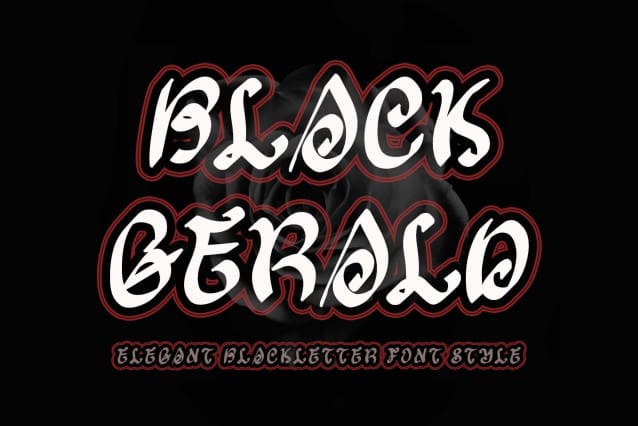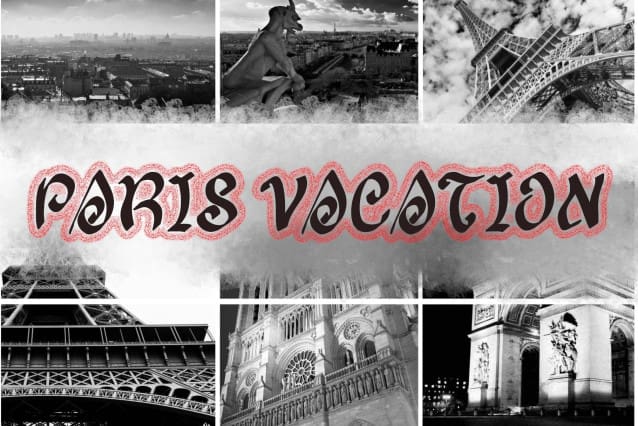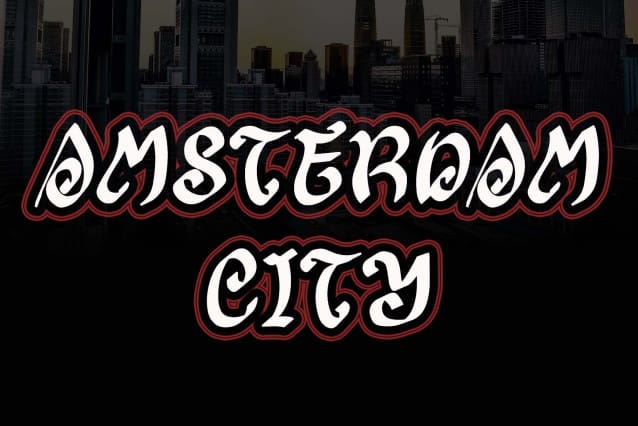
Black Gerald Font
Black Gerald Font is an elegant blackletter font. It comes with capital letters, lowercase letters, numbers, punctuation, and multilingual support. It is perfect for use on Christmas, winter, posters, prints, banners, logos, branding, stickers, logos, business branding, prints, and more.